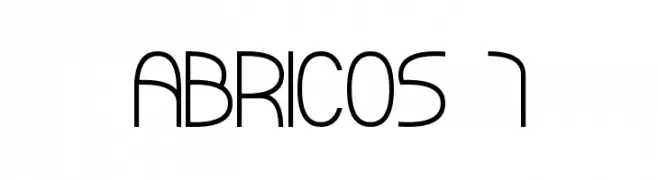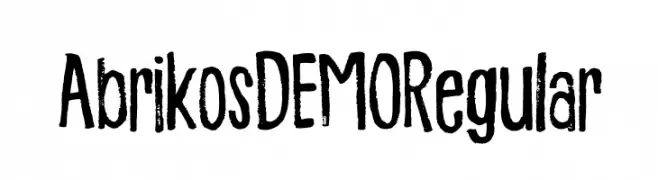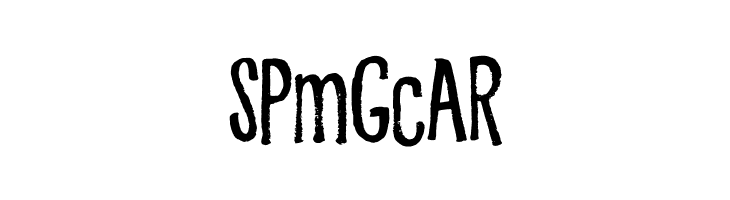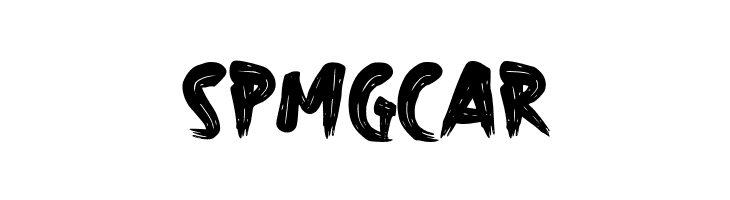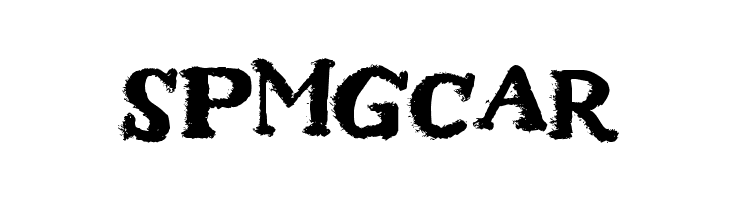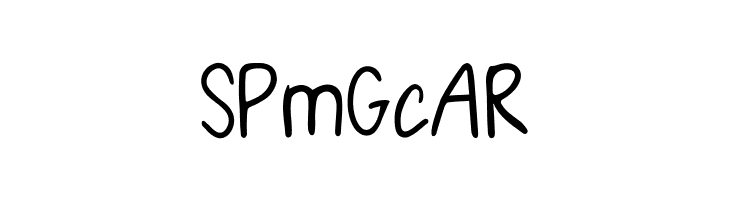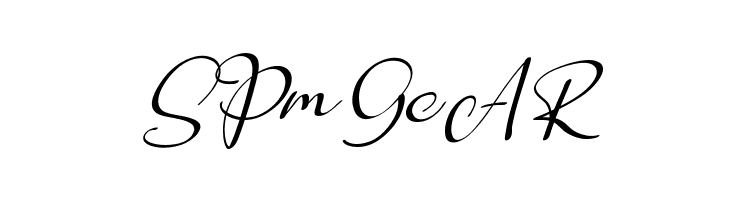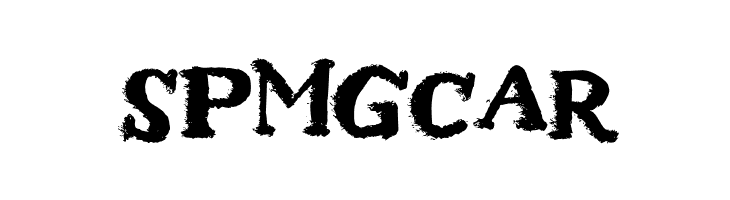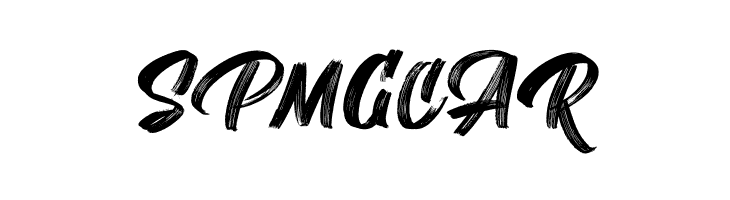
• Abrashe
A bold, brush-style font with dynamic, textured strokes.
• Abrasion
A bold, distressed font with a rugged, textured appearance.
• Abrasion
A bold, distressed font with a rugged, textured appearance.
• ABREUL Regular
A playful, casual handwritten font with smooth, rounded edges.
• Abreviater
A bold, brushstroke font with a textured, artistic style.
• ABRICOS 7
A modern, geometric font with clean, rounded edges and consistent stroke width.
• Abrikos DEMO Regular
A bold, hand-drawn font with a textured, distressed look.
• Abrushow
A bold, brush-style font with dynamic and expressive strokes.
• Abrushow
A bold, brush-style font with dynamic and expressive strokes.
• Absence
An elegant script font with fluid, cursive strokes and sophisticated flourishes.